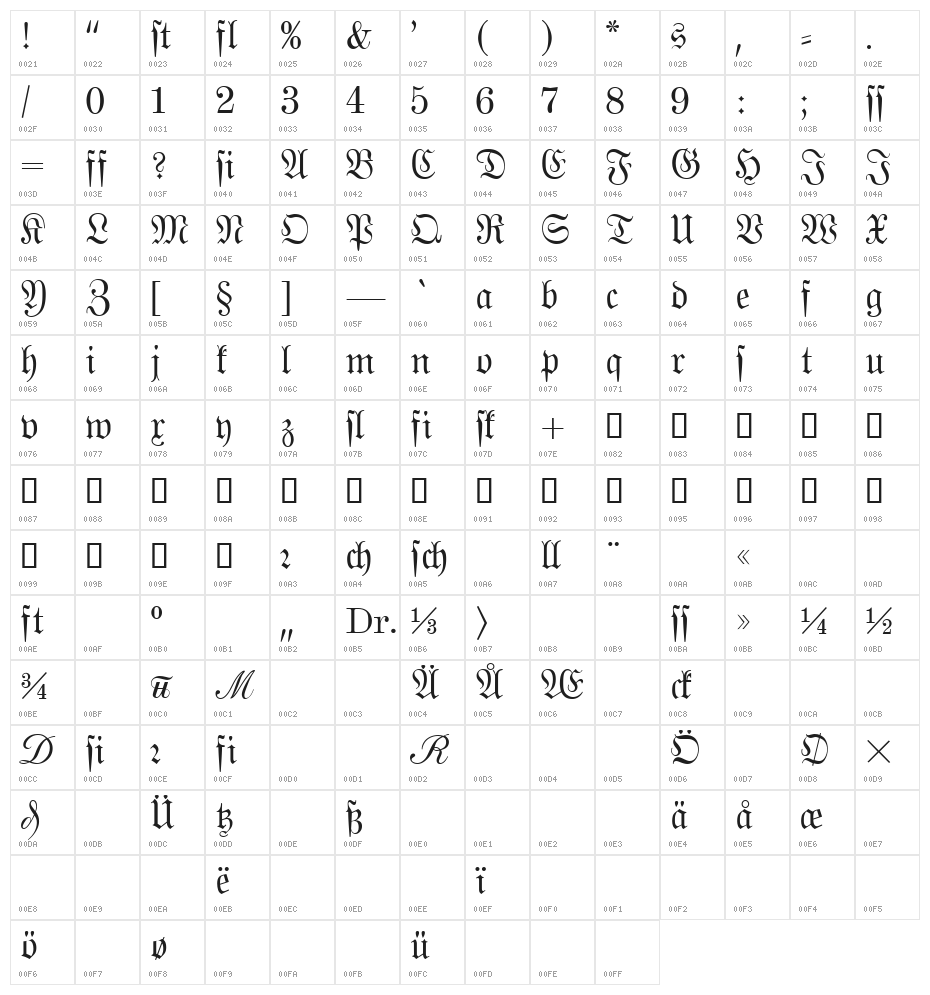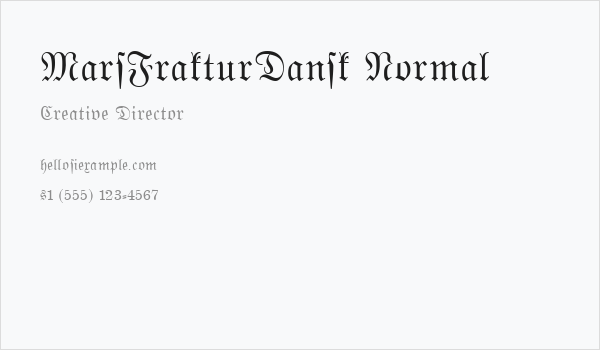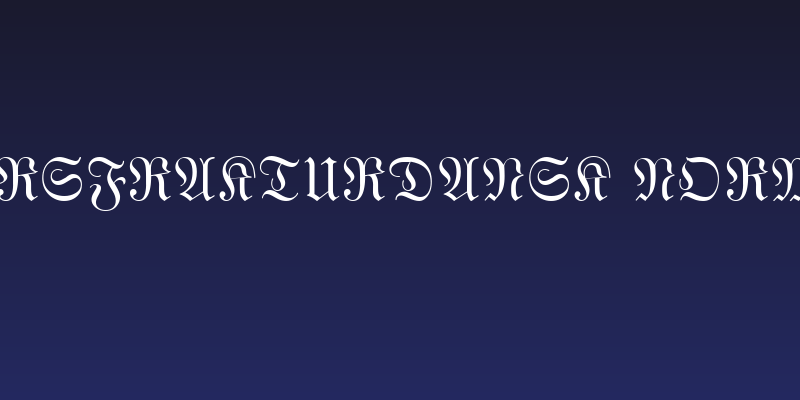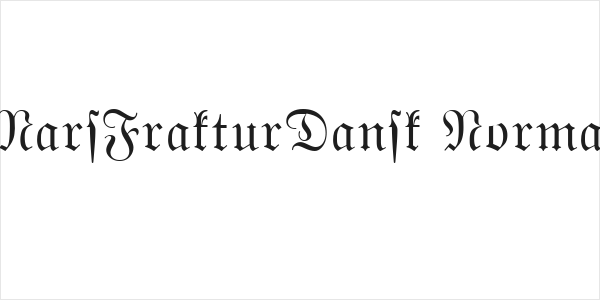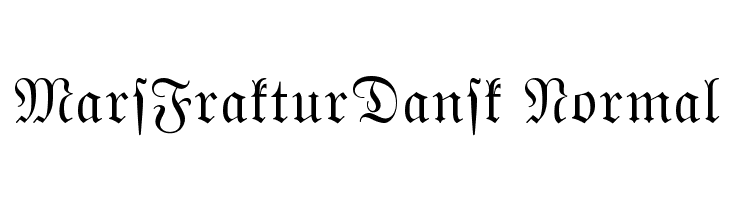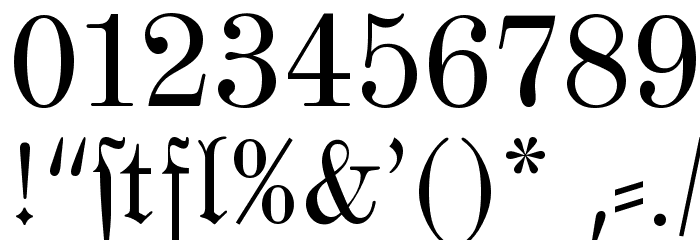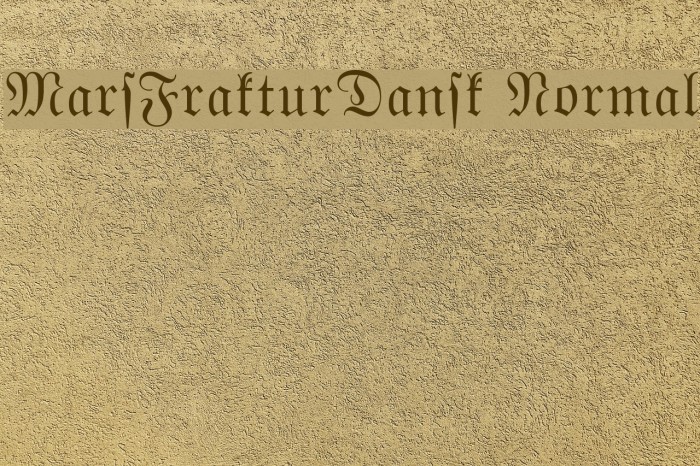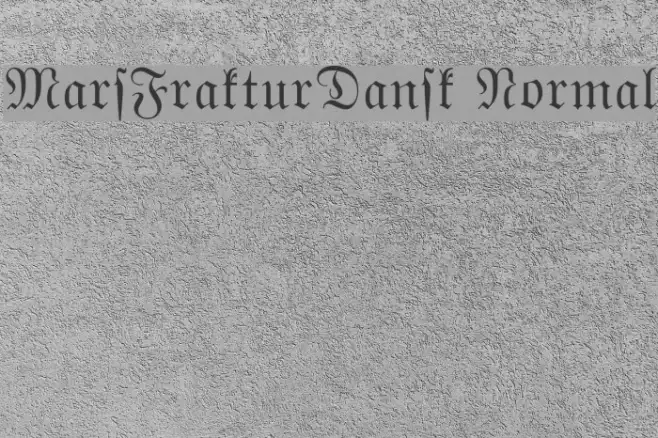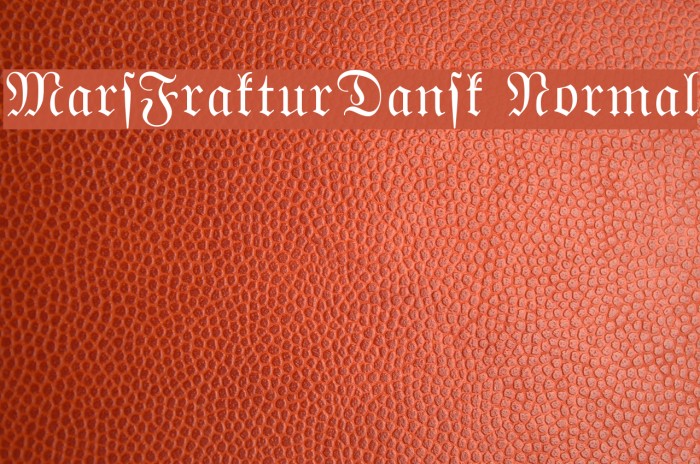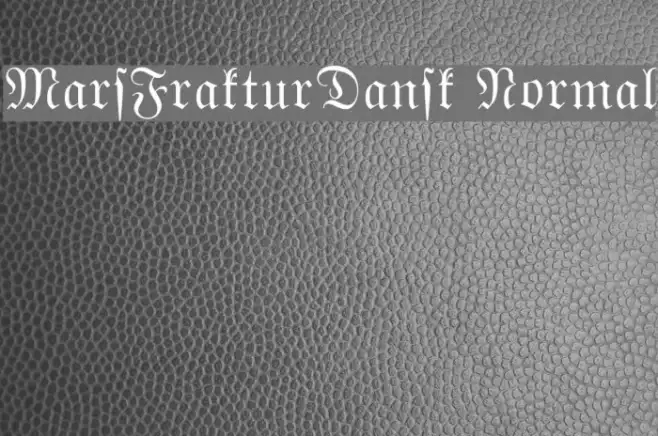
MarsFrakturDansk Normal Font
MarsFrakturDansk Normal Description
This font is a striking example of Blackletter style, characterized by its intricate and ornate design. The uppercase letters feature elaborate curves and sharp angles, giving them a dramatic and historical appearance. The lowercase letters maintain a consistent style, with tall ascenders and descenders that add to the font's elegance. The numerals are equally stylized, with a unique flair that complements the overall aesthetic. Special characters are designed with the same attention to detail, making them seamlessly integrate with the rest of the character set. This font exudes a sense of tradition and formality, making it ideal for projects that require a touch of classic sophistication.
| Use Case | Headlines, Logos, Certificates |
| Proposed Projects | Ideal for historical documents, certificates, wedding invitations, and branding that requires a traditional and formal touch. |